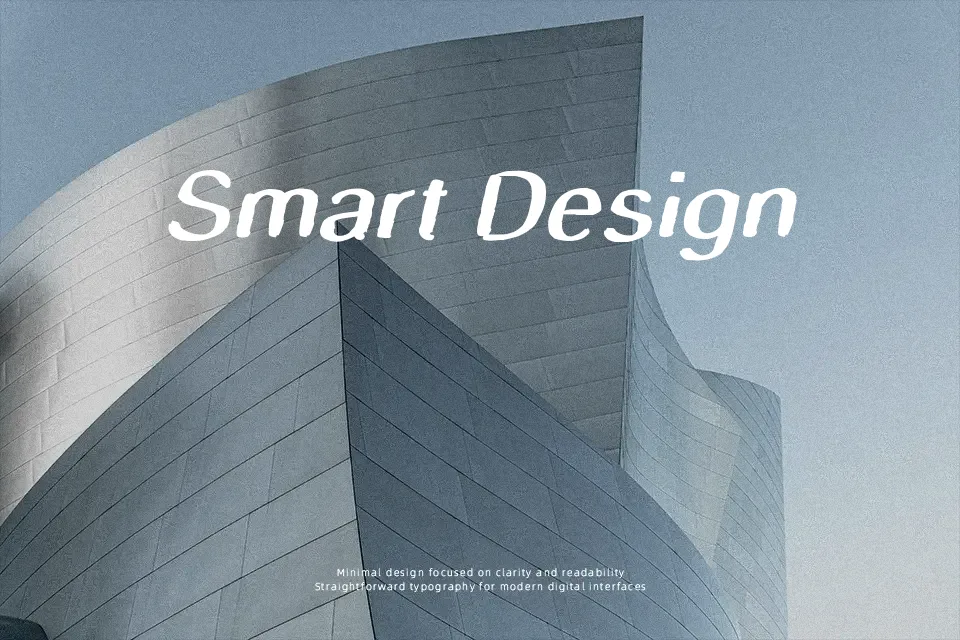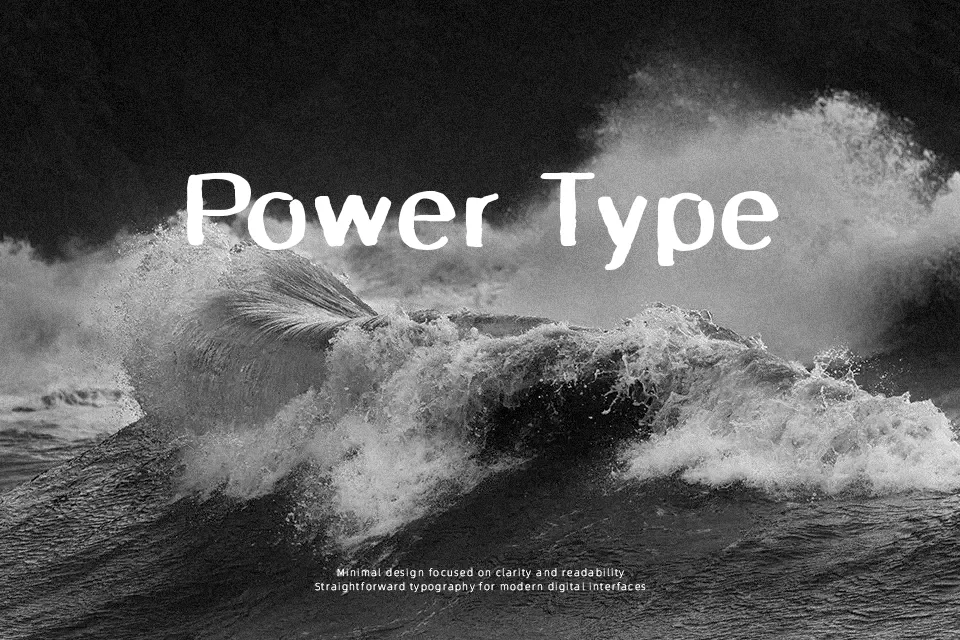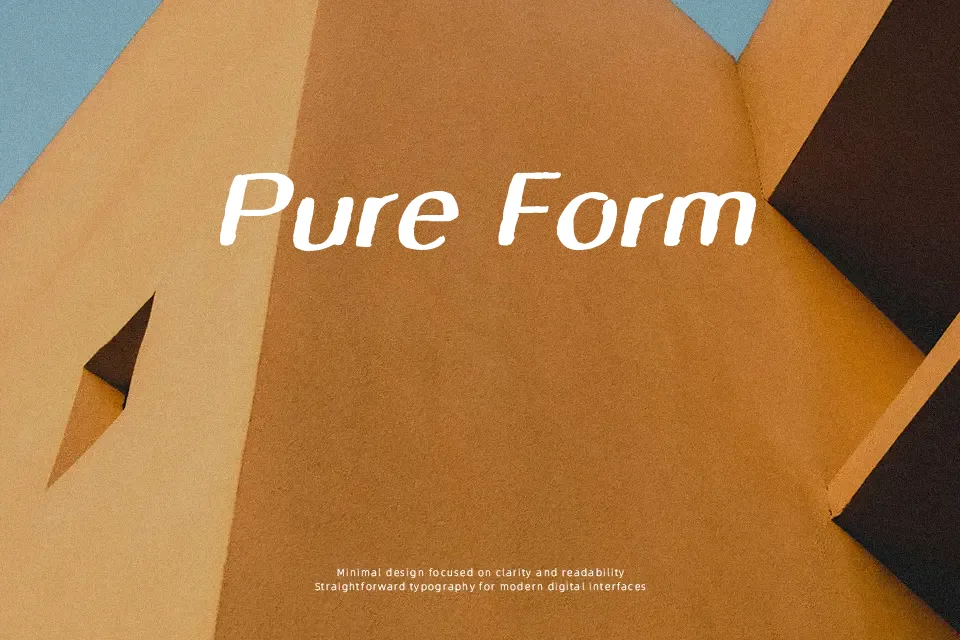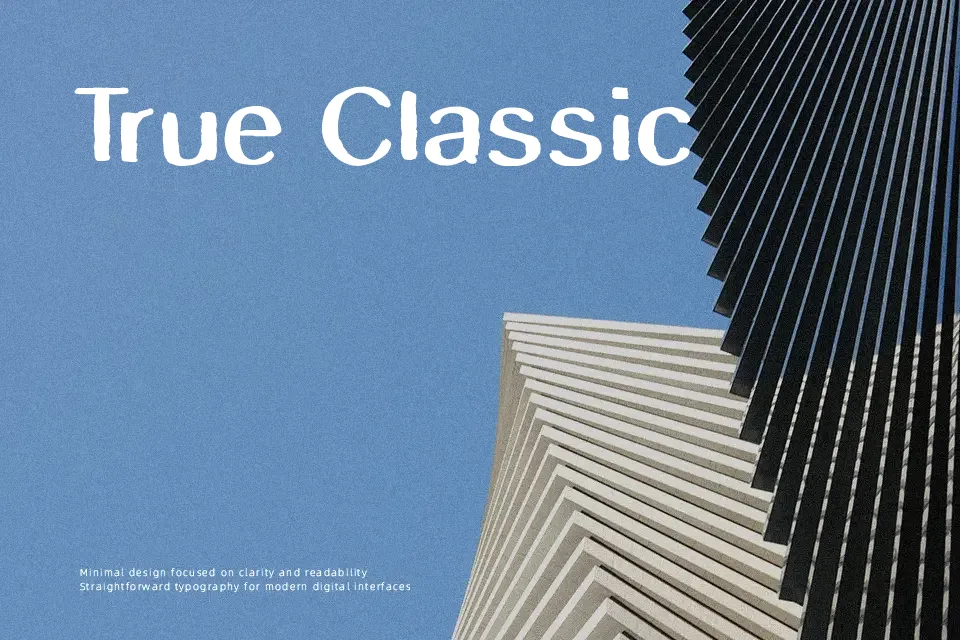
Smudge Stick Font
Smudge Stick Font uses thick, irregular letterforms with visibly worn edges and a hand-drawn display character. Its broad, sturdy shapes and mostly balanced spacing keep short words readable at poster and headline sizes, while the distressed outlines introduce a deliberately rough rhythm. Uppercase characters carry the strongest visual presence, and the available oblique style can add movement to short compositions. It works best when the texture is allowed room to show rather than compressed into tight layouts. The rough detailing remains effective in large text but can make small captions and extended reading less comfortable.
Best For: music event posters,skateboard apparel graphics,grunge product packaging,expressive social media headlines
Perfect for headline, packaging, and poster, with a bold and decorative style.